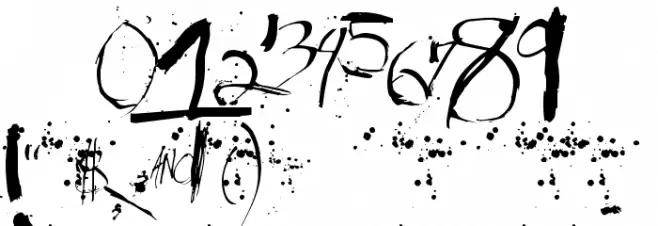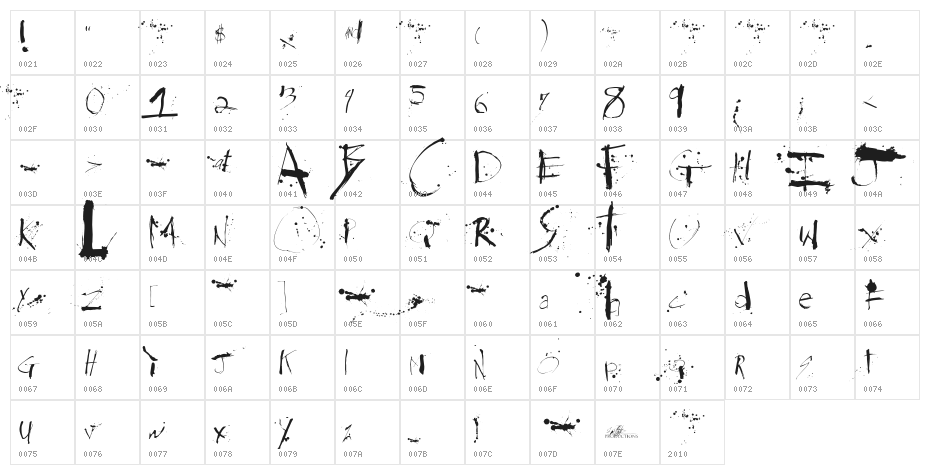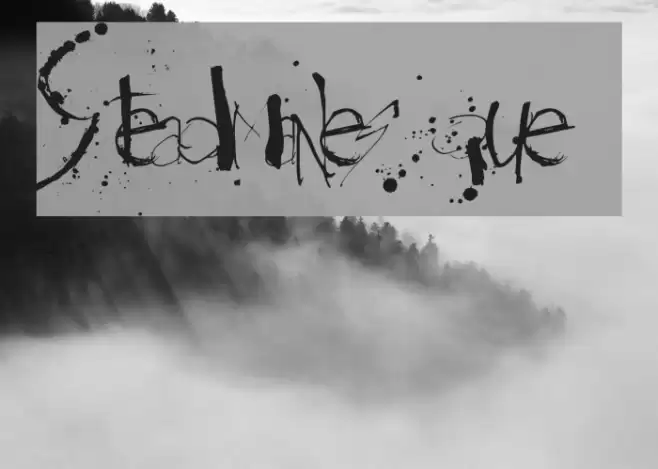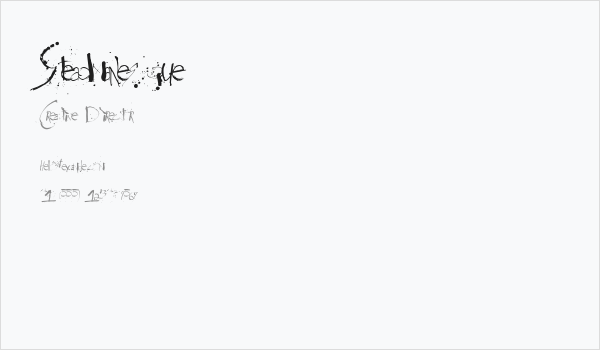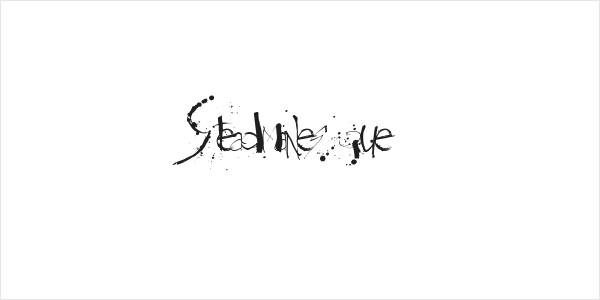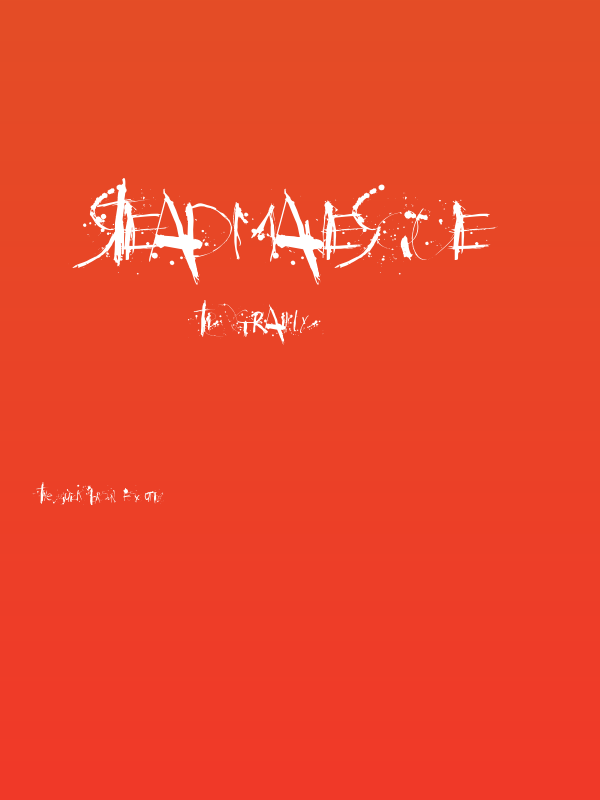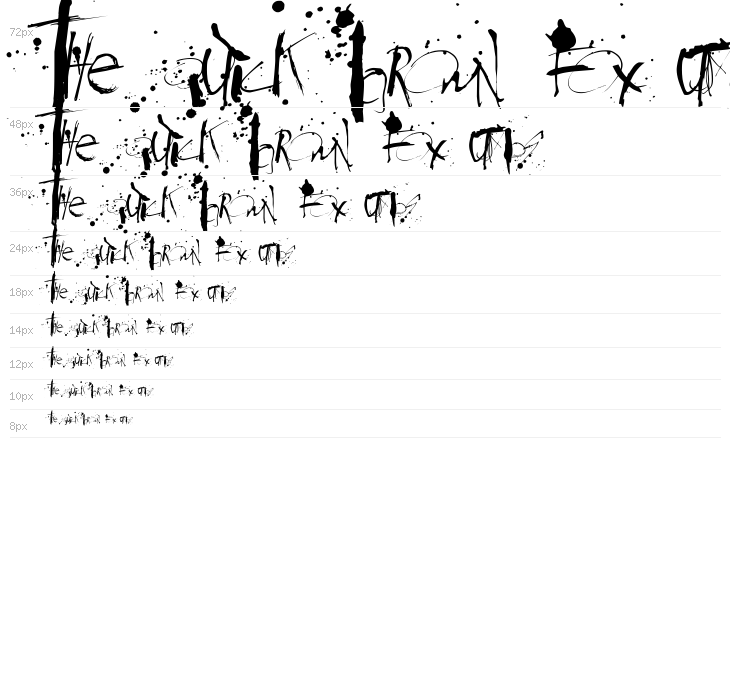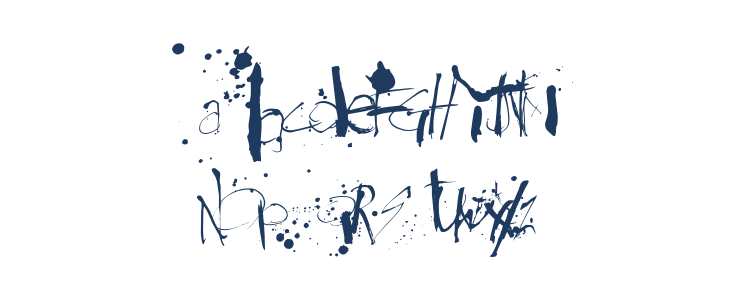
Steadmanesque Font
Steadmanesque Description
This font is a bold, expressive typeface that embodies a chaotic and artistic style, reminiscent of ink splatters and hand-drawn strokes. The characters are irregular and dynamic, with varying thicknesses and a sense of movement. The uppercase and lowercase letters are distinct yet cohesive, each letter appearing as if it were painted with a brush. Numbers and special characters maintain this artistic flair, contributing to the overall aesthetic. The font's unique style makes it stand out, ideal for projects that require a strong visual impact.
| Overall Style | Artistic, Chaotic, Expressive |
| Use Case | Headlines, Artistic projects, Posters |
| Proposed Projects | Ideal for album covers, posters, artistic projects, and any design requiring a bold, expressive touch. |